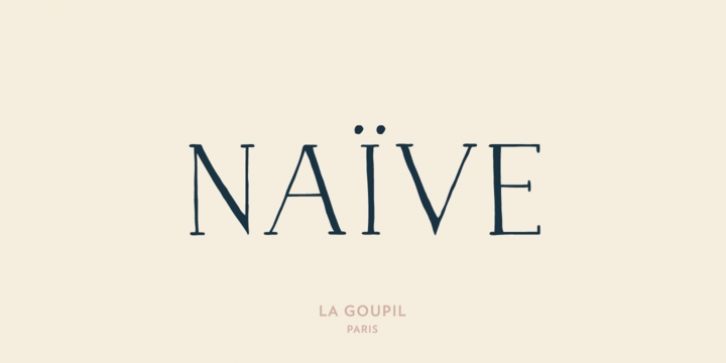
Naïve is a serif handwritten font designed by Fanny Coulez and Julien Saurin from the french foundry La Goupil Paris. The three weights of this new parisian typography can be enhanced with three weights of two alternates fancy glyphs for each letter, the “Fantaisies”, to improve your designs and bring a more poetic and unusual feeling. We also designed an inline bicolor version of this typeface, Naive Inline. Merci beaucoup!